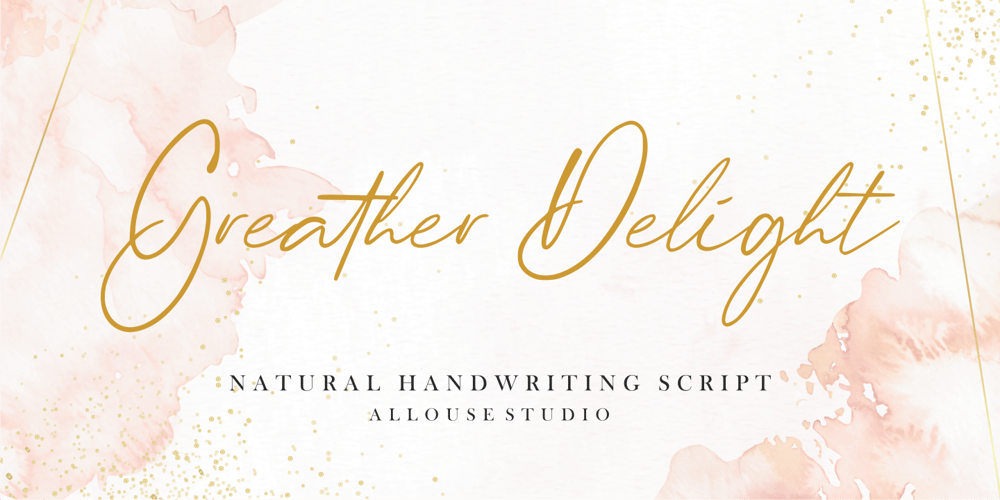
Greater Delight
Greater Delight font
Greater Delight Font Family was designed by Fachrizal Yusuf and published by Allouse Studio. Greater Delight contains 1 styles and family package options. Greater Delight a Natural Handwritting Script. Feel the natural and beautiful handwriting impression!Greater Delight is perfect for any tittles, logo, product packaging, branding project, megazine, social media, wedding, or just used to express words above the background.Greater Delight come with Beginning and Ending swash, also come with multilingual support to fulfill your need!We highly recommend using a program that supports OpenType features and Glyphs panels like many of Adobe apps and Corel Draw, so you can see and access all Glyph variations.Enjoy the font, feel free to comment or feedback, send me PM or email. Thank You!